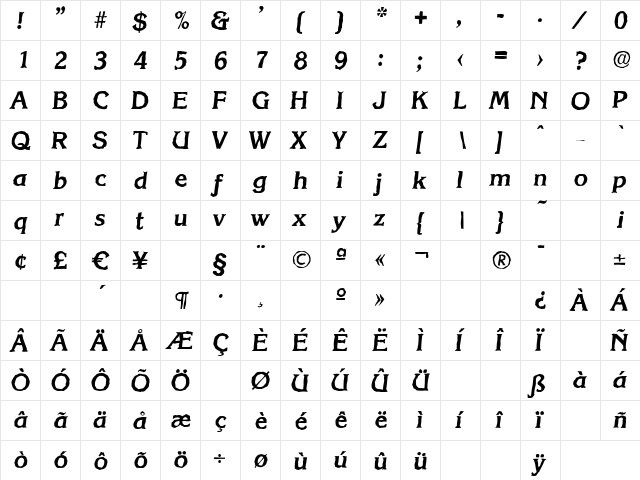
KorinthAntique BoldItalic Font Preview
Design Context for KorinthAntique Typeface
KorinthAntique wears its vintage influences proudly, with letterforms that recall mid-century signage, classic packaging, and nostalgia-driven design. The dynamic lean of this cut emphasises speed and emphasis in any layout. The heavy weight commands attention and anchors typographic hierarchies.
Font Pairing: Combine KorinthAntique with a simple slab or neutral sans — period-accurate companions reinforce the vintage feel without competing for attention.
Pro Tip: Use KorinthAntique for headlines and pull quotes rather than body copy — its personality is best appreciated in short, focused bursts.